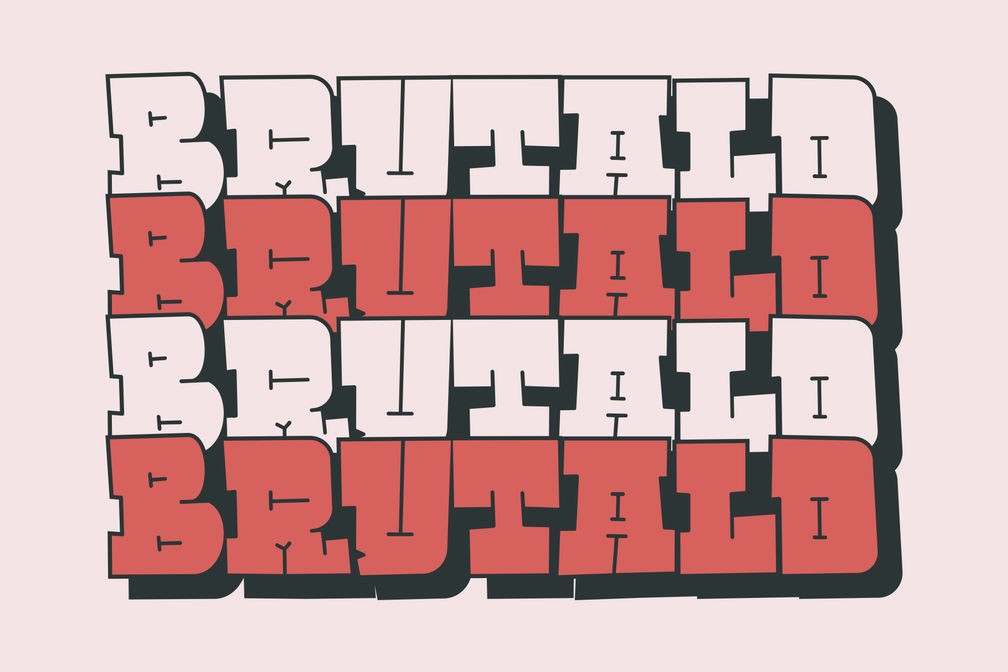
Brutald Graffiti Bold
Inspired by a graffiti font with bold features, the combination of slabs makes the font seem funky and slightly cartoonish, great for large-scale use.